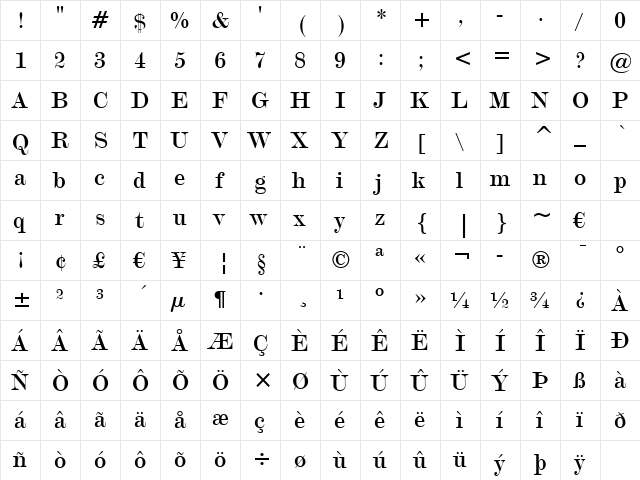
Modern20 BT Roman
Design Context for Modern20 BT Typeface
Modern20 BT offers clean, dependable letterforms without strong stylistic allegiance, making it a practical choice for designers who need flexibility.